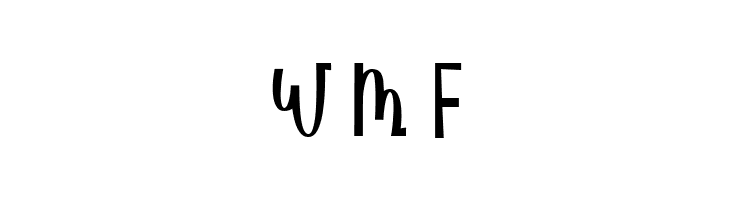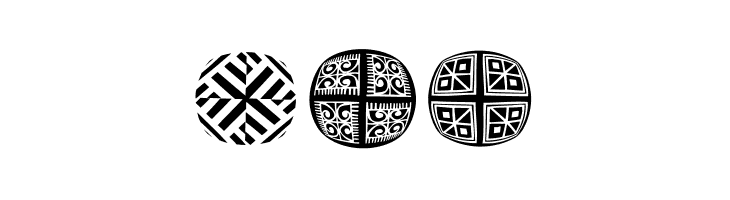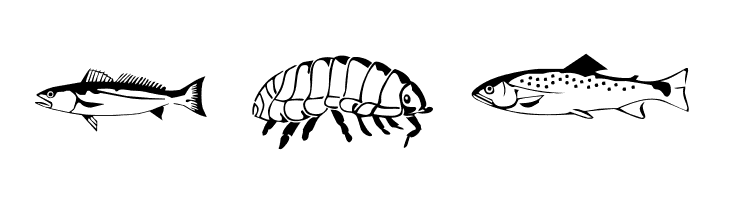
• Areson
An ornate and decorative font with elaborate swirls and flourishes.
• AreYouFreakinSerious
A playful, hand-drawn font with rounded, whimsical characters.
• Arfellion
A flowing, cursive script with elegant loops and artistic flair.
• Arfindes Orthem Demo Regular
Playful handwritten font with a casual style.
• Argapuri Regular
A modern, geometric font with tall, narrow characters and consistent stroke widths.
• Argel Font
A bold, gothic-inspired font with sharp, angular lines and dramatic serifs.
• Argentina
A bold serif font with angular serifs and a modern twist.
• Argentina
• Argentina Austral
A bold, edgy font with sharp, angular edges and a distressed look.
• Argentina Austral
A bold, angular font with a distressed, edgy style.
• Argentina Regular
A bold, decorative font with a distressed texture and geometric design.
• ArgentinaScript
An elegant, flowing script font with high contrast and graceful curves.
• ArgentinaScript-Italic
A flowing, cursive script font with an elegant italic slant.
• ArgentinaScript-Regular
An elegant script font with fluid, cursive strokes and high contrast.
• ArgentinaScript-Regular